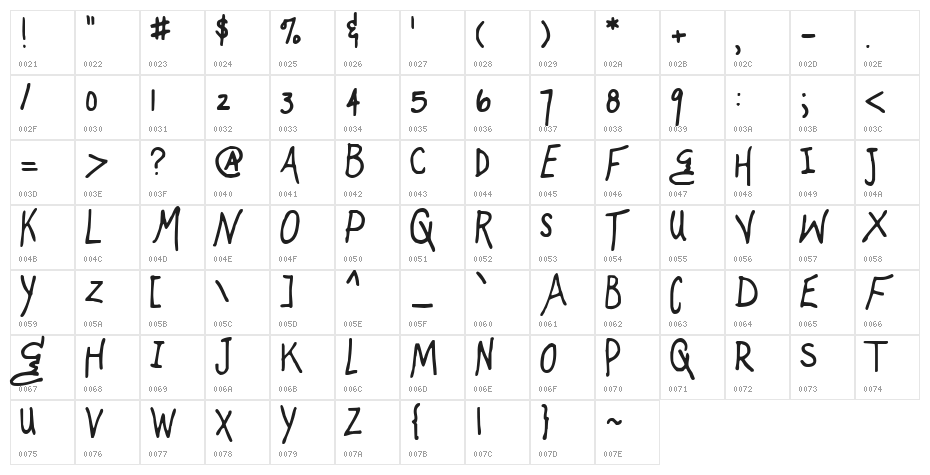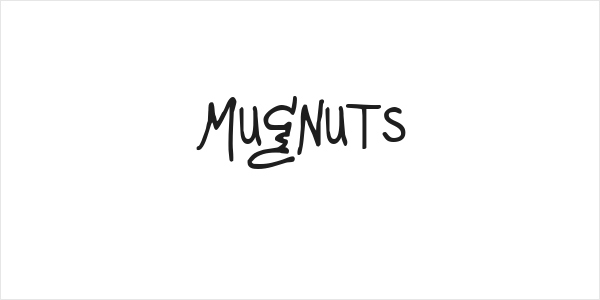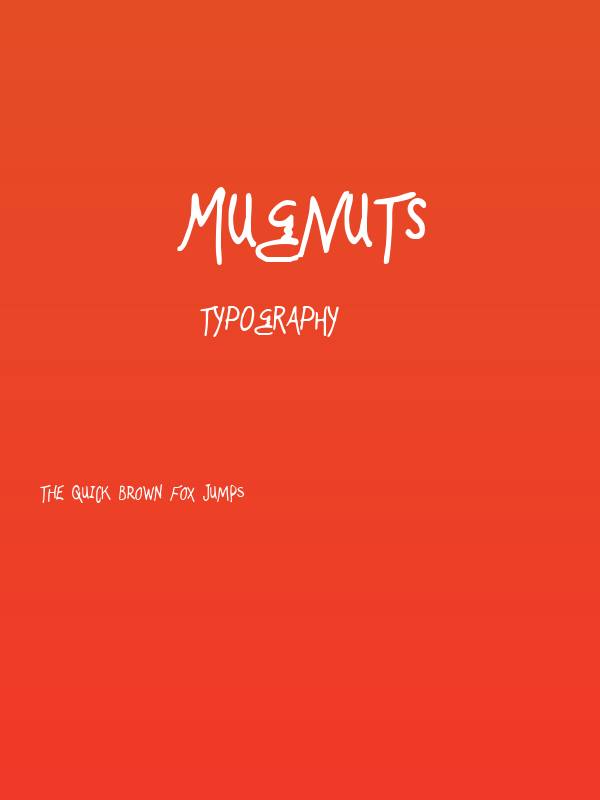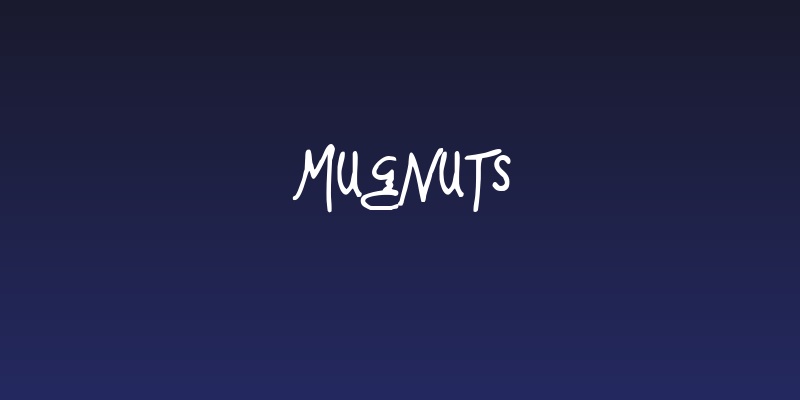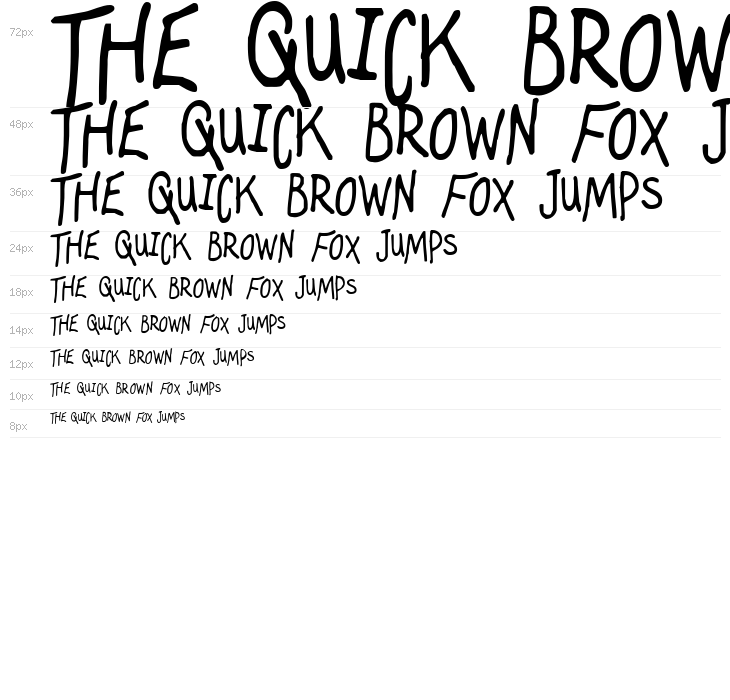
Mugnuts Font
Mugnuts Description
This font exudes a playful and casual handwritten style, characterized by its irregular strokes and whimsical appearance. The letters are bold and slightly uneven, giving a sense of spontaneity and creativity. The uppercase and lowercase letters maintain a consistent style, with a slight slant that adds to the dynamic feel. The numbers and special characters follow the same playful aesthetic, making the font suitable for informal and creative projects. Its unique charm is perfect for designs that aim to convey a sense of fun and individuality.
| Proposed Projects | Ideal for children's books, greeting cards, playful branding, and creative posters. |